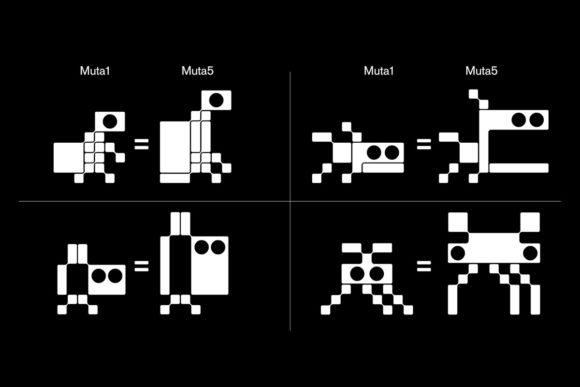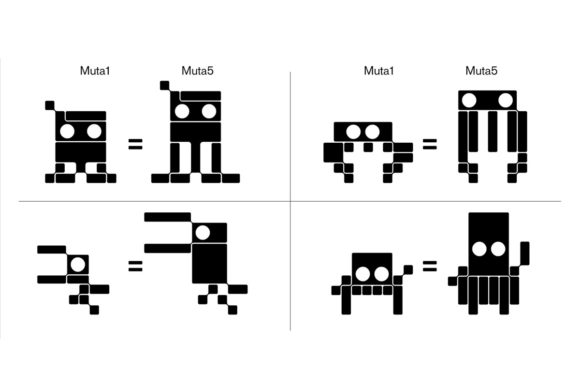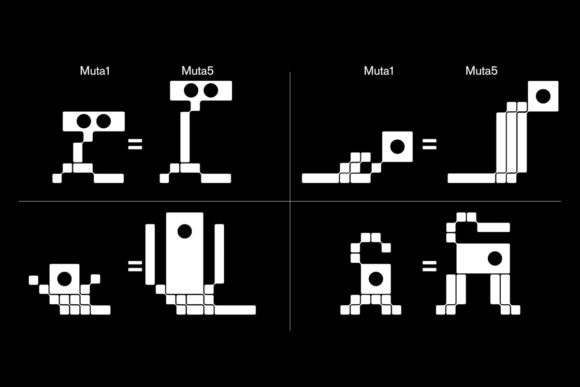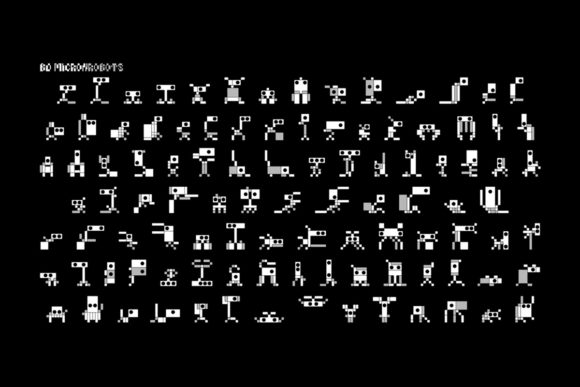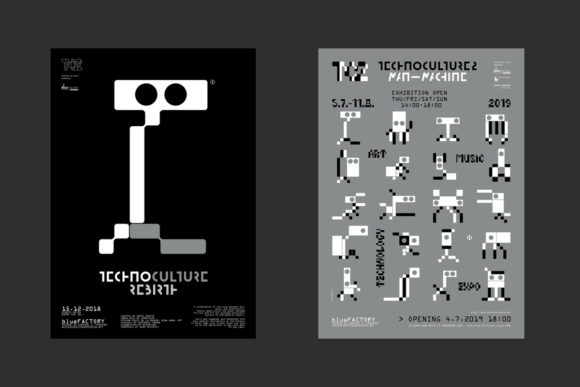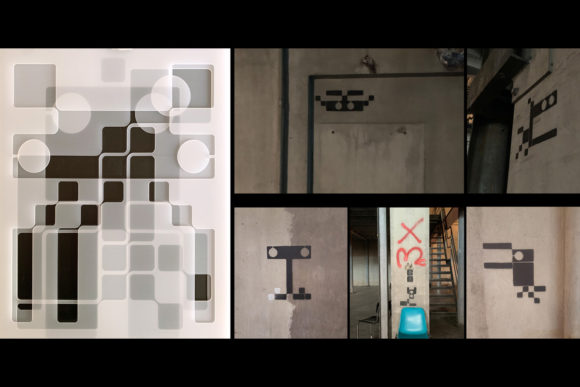
Unlocking Creativity with BD MicronRobots Font
I’ll never forget the moment I stumbled upon the BD MicronRobots font. I was working on a DIY project for a client’s birthday, and I was struggling to find the right dingbats to make it stand out. The client wanted something unique and fun, but I was running out of ideas. That’s when I discovered BD MicronRobots, and it completely transformed my design. In this article, I’ll share my experience with this amazing font, its features, and how to make the most of it.
An Honest Review of BD MicronRobots
- ✨ Unique and quirky designs that add a touch of personality to any project
- ✅ Extensive character set, including OpenType features and glyphs
- 🎨 Highly versatile, suitable for a wide range of DIY projects, from crafting to graphic design
While BD MicronRobots is an excellent font, there are a few things to keep in mind:
- 🤔 Some characters may require manual kerning for optimal spacing
- ⚠️ Limited language support, primarily suitable for English and other Western languages
The Backstory of BD MicronRobots
BD MicronRobots was designed by a team of creatives who wanted to bring a touch of whimsy and fun to the world of dingbats. Inspired by retro-futurism and sci-fi, the font features a range of robotic and technological illustrations. The designers aimed to create a font that would be both functional and visually appealing, making it perfect for DIY projects and creative endeavors.
| Font Name | BD MicronRobots Font |
| Author | Büro Destruct |
| What type of projects is BD MicronRobots best suited for? | BD MicronRobots is ideal for DIY projects, crafting, graphic design, and any creative endeavor that requires a unique touch. |